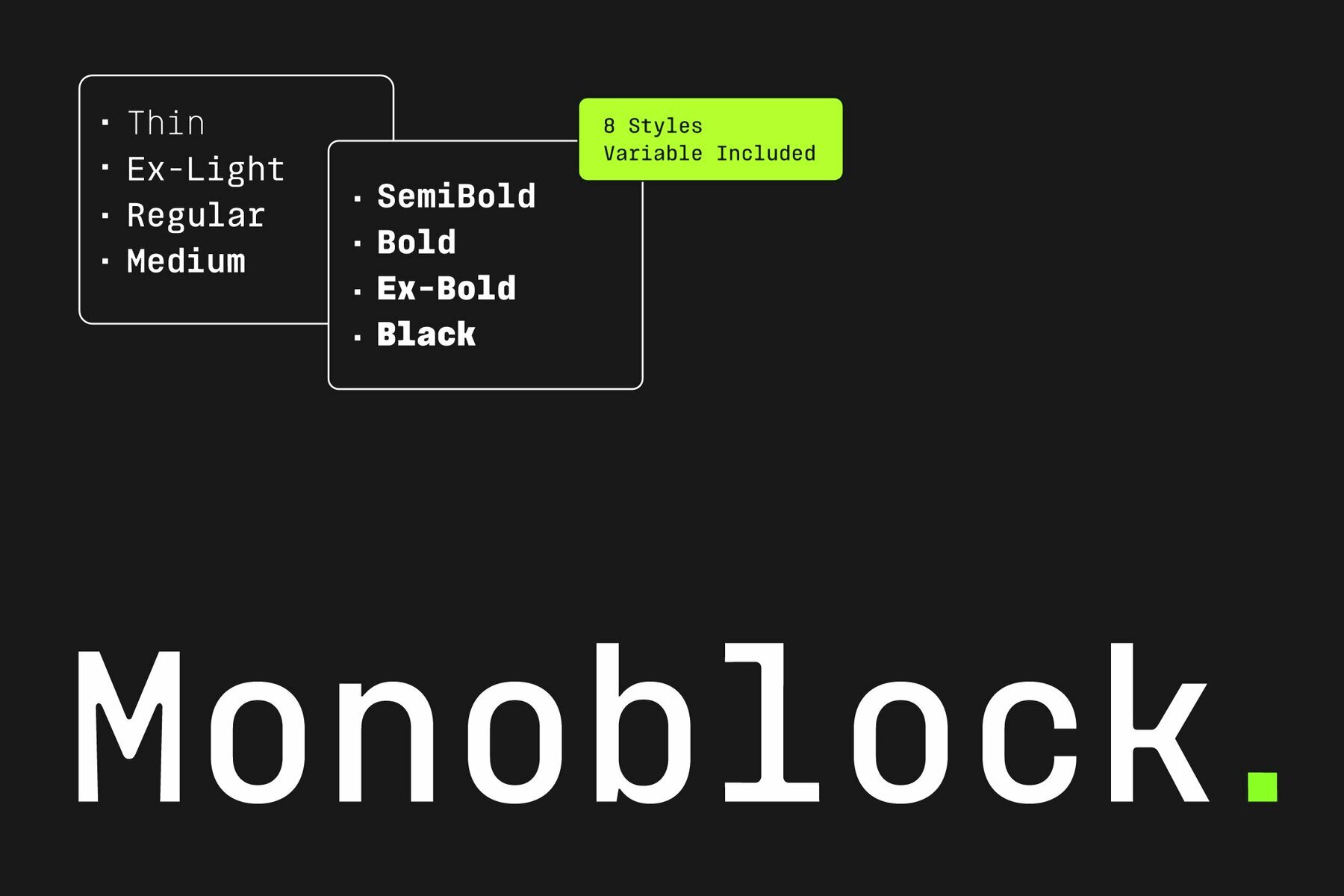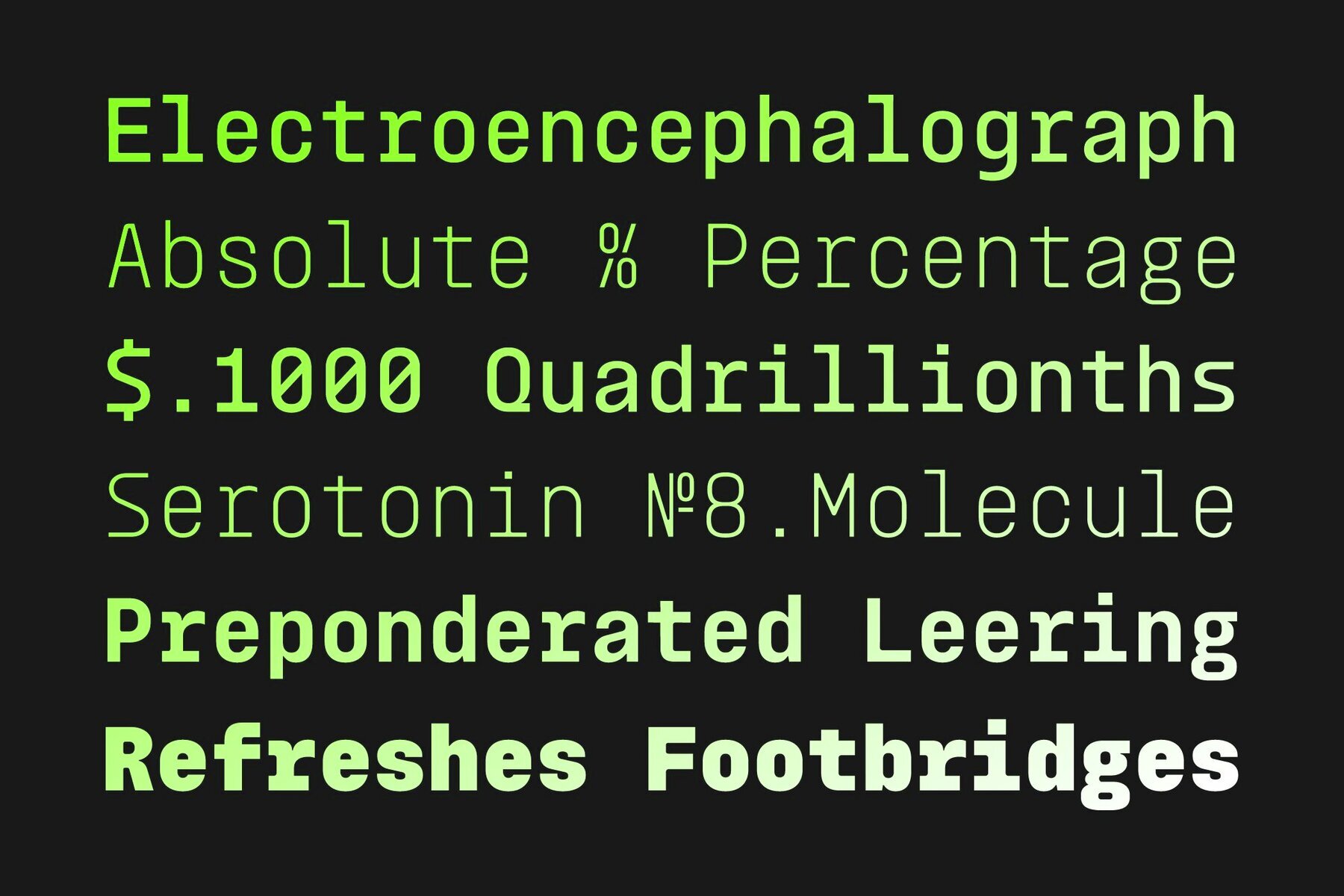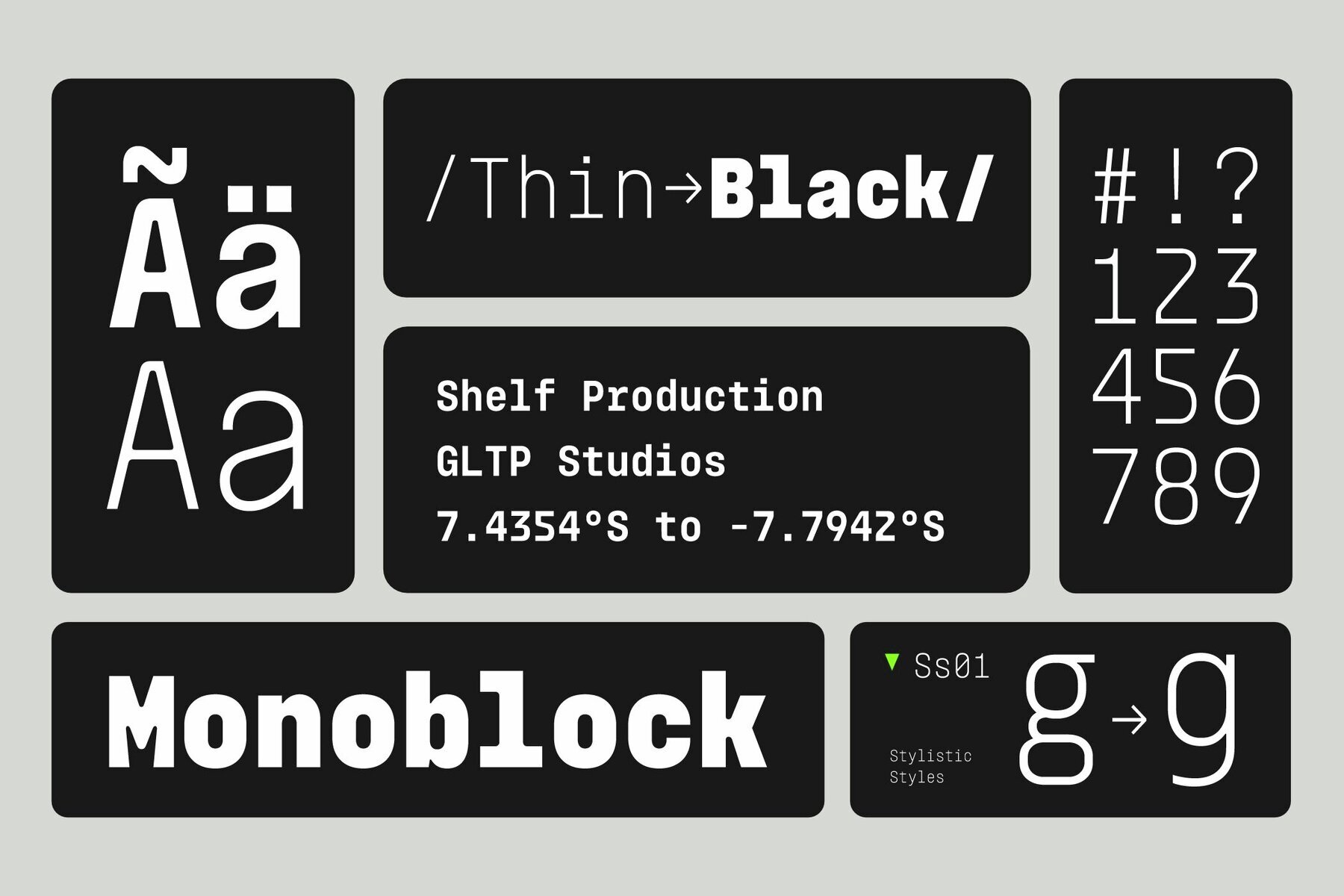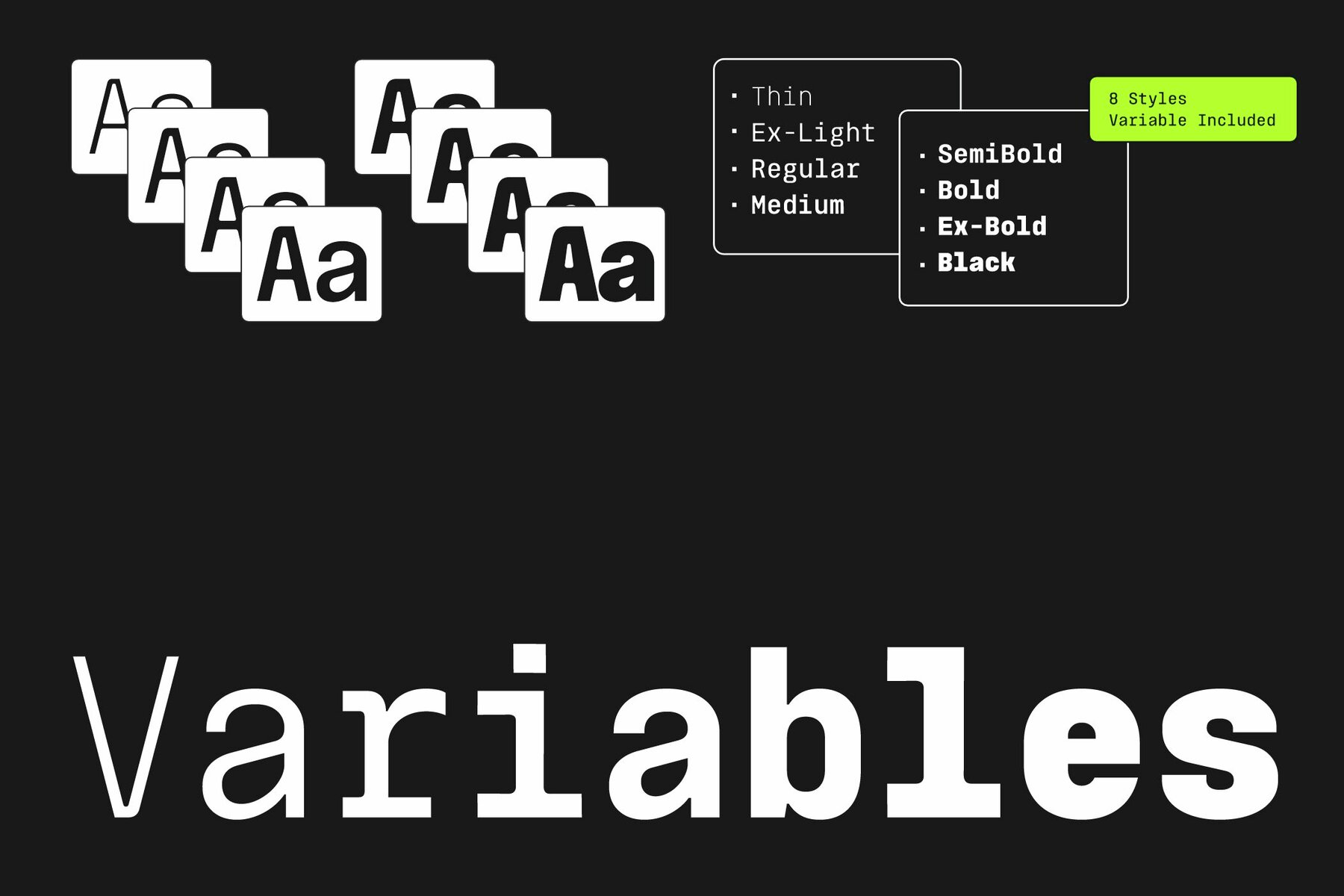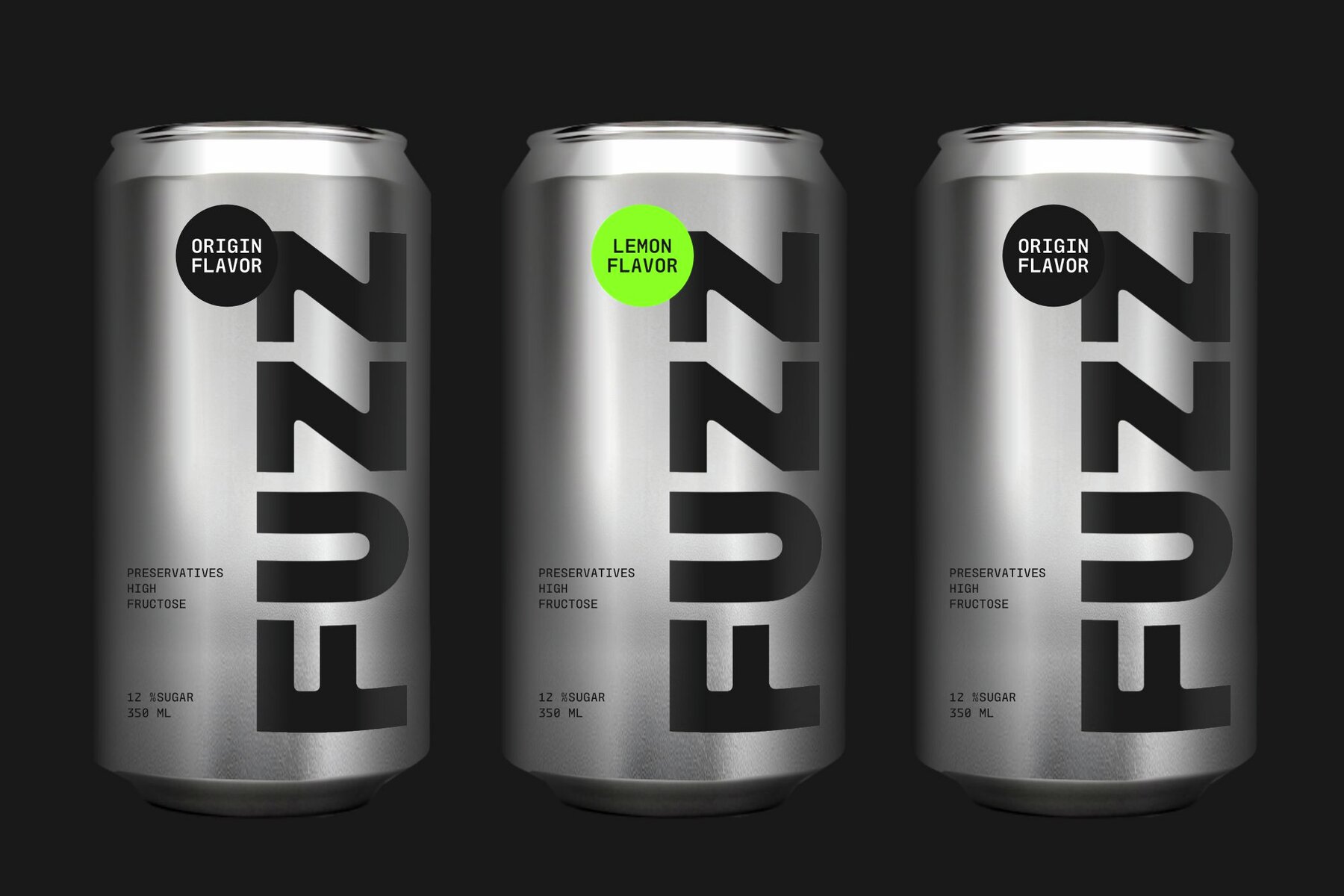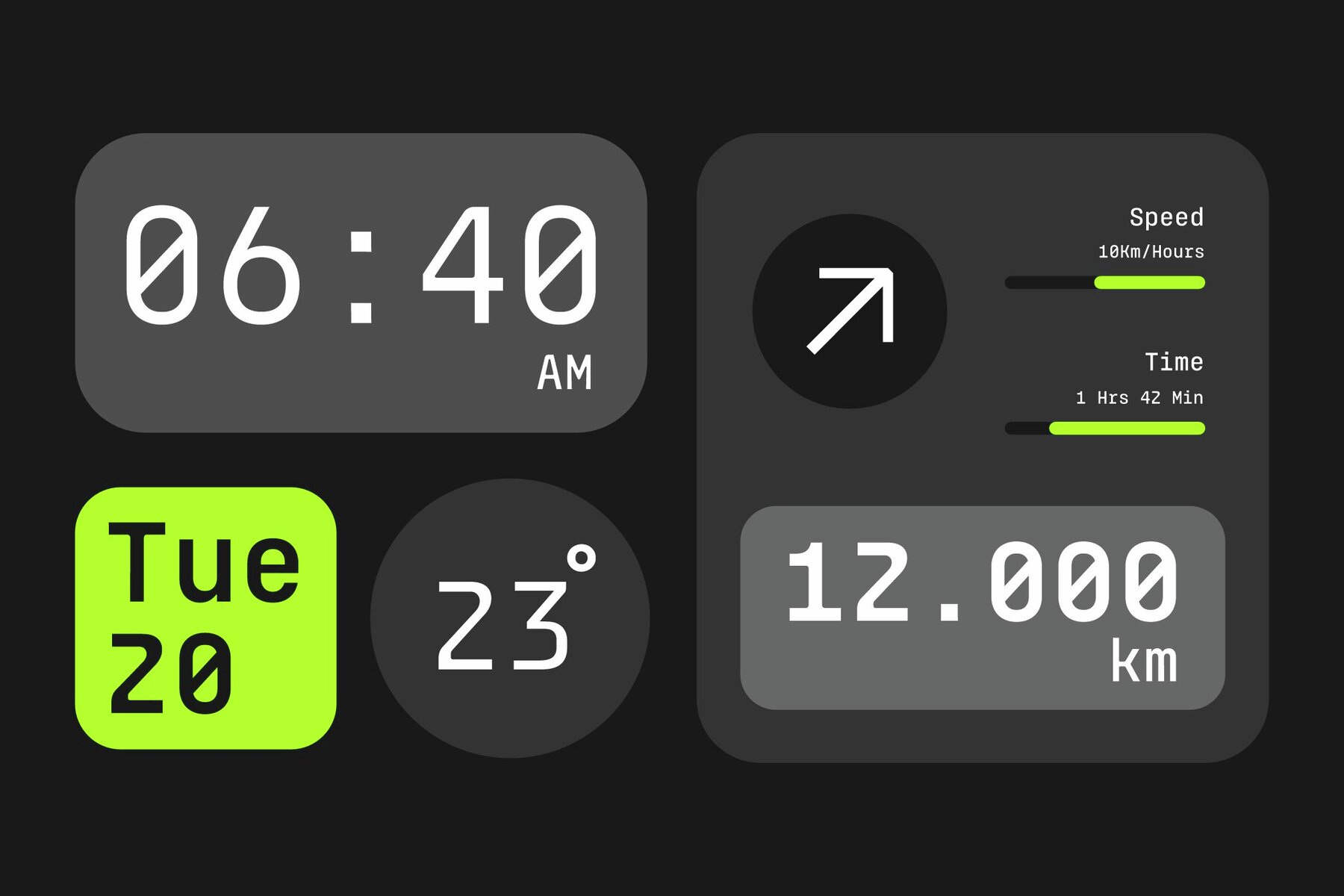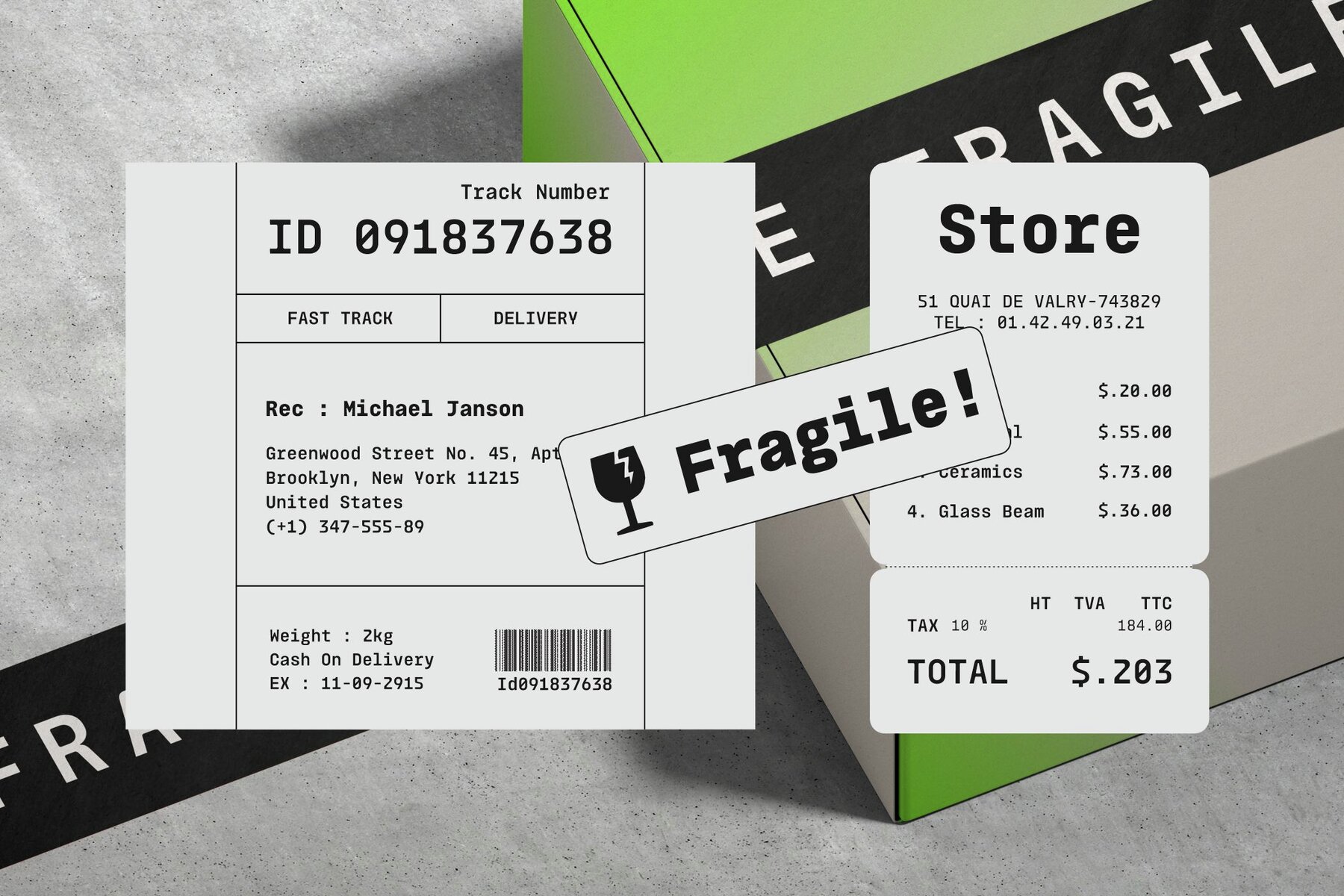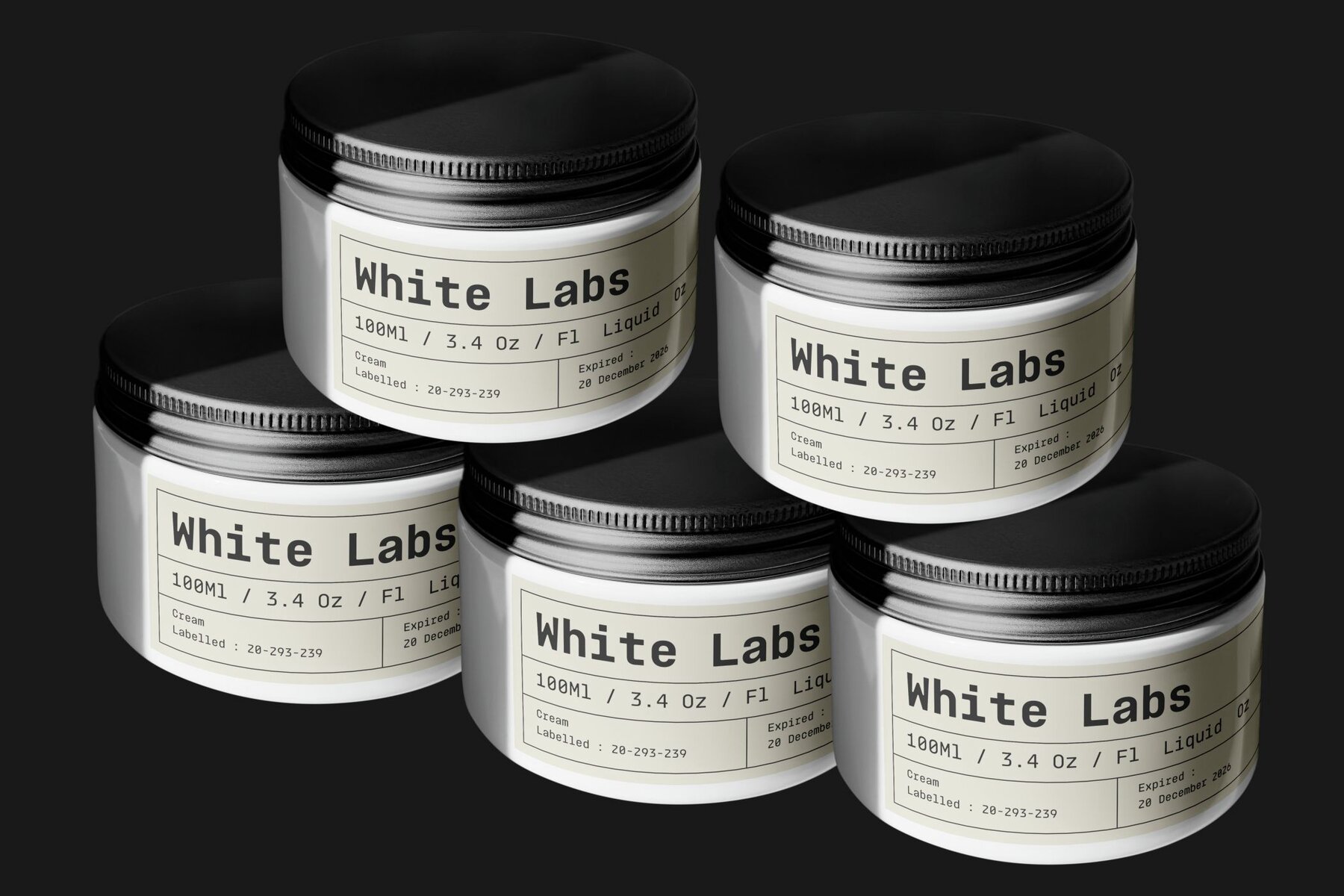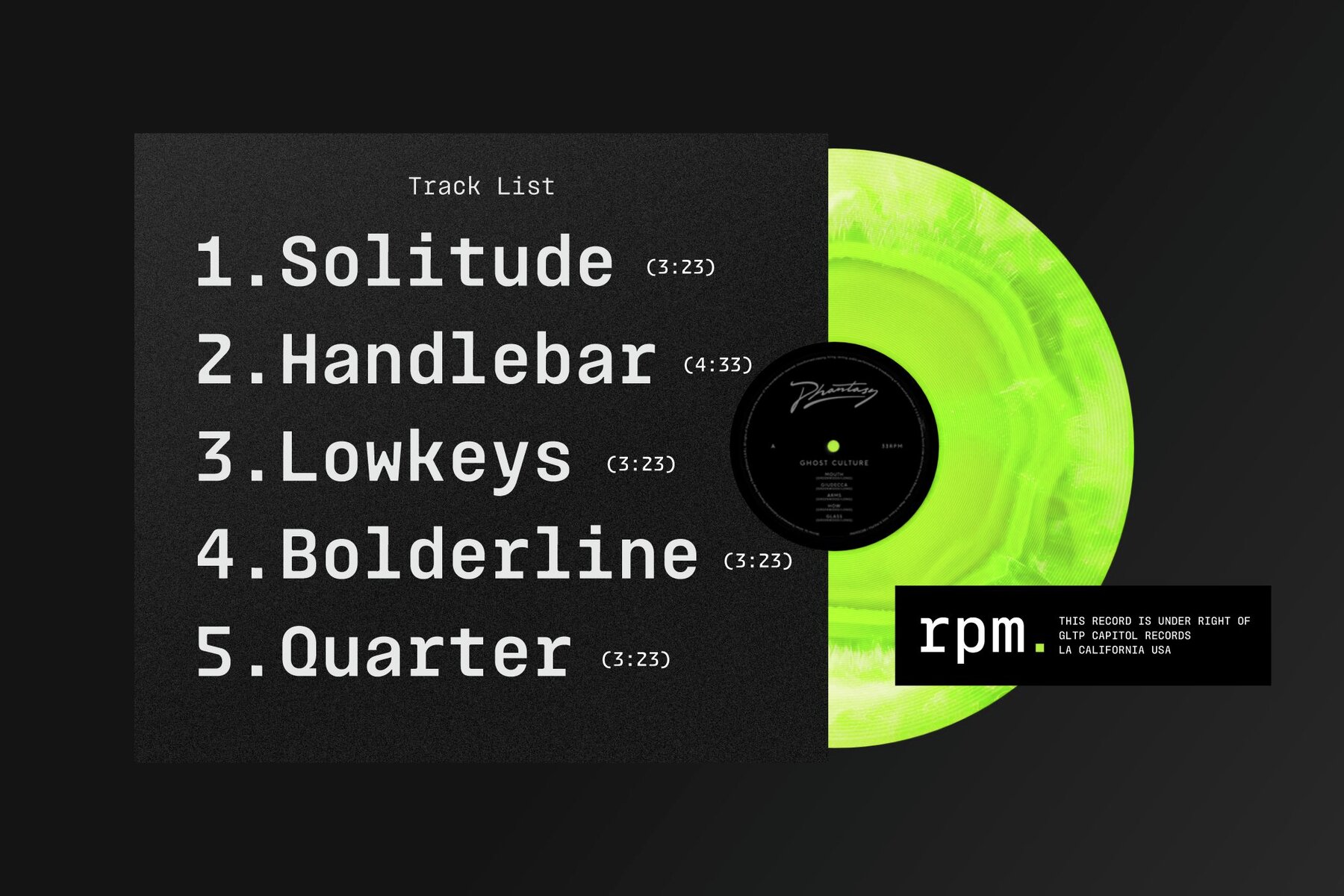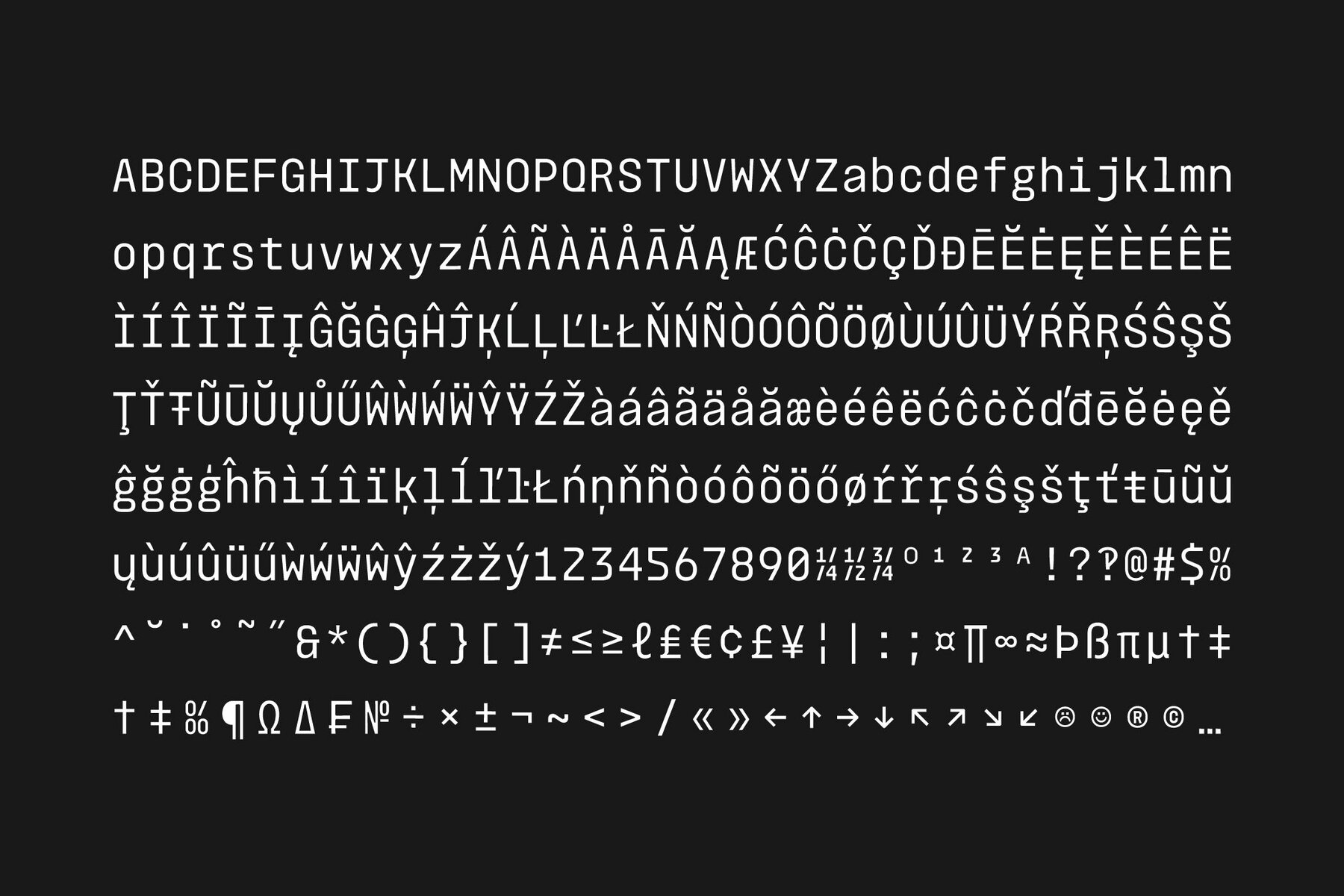
Monoblock Font
Monoblock Thin
Monoblock Extra Light
Monoblock Light
Monoblock Regular
Monoblock Medium
Monoblock Semi Bold
Monoblock Bold
Monoblock Extra Bold
Monoblock Black
Monoblock Variable
Monoblock is a contemporary monospaced typeface family, expertly crafted with precision, clarity, and functionality. While it takes inspiration from classic typewriter fonts, it is meticulously refined for modern digital environments, balancing technical accuracy with a clean, versatile aesthetic. Consistent spacing across all characters ensures exceptional readability and alignment, making Monoblock an ideal choice for coding, user interfaces, technical documents, and tabular data. Its structured geometry and even rhythm provide a stable and reliable text flow. With a range of weights from Thin to Black, it offers flexibility for both functional and expressive applications. This professional mono font family is well-suited to screen-based programming environments, editorial layouts, or any branding project requiring a rational and minimalist tone. Monoblock exemplifies utility merged with contemporary design elegance.Monoblock: Precision in Modern Monospaced Typography